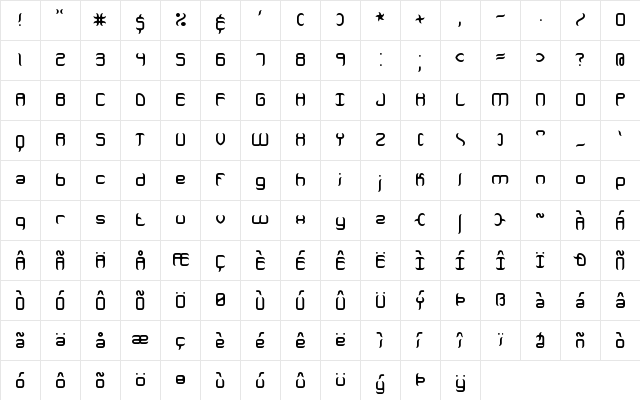
Jeopardize BRK Normal
Design Context for Jeopardize BRK Typeface
Jeopardize BRK takes a measured approach to typography — its balanced proportions and neutral character make it a reliable workhorse for both digital and print work.
Pro Tip: Use Jeopardize BRK in both headline and body roles to test its range before committing to a single application.